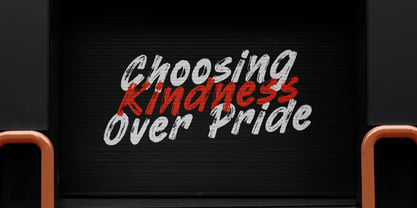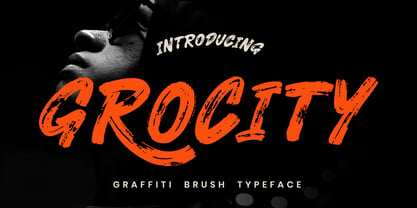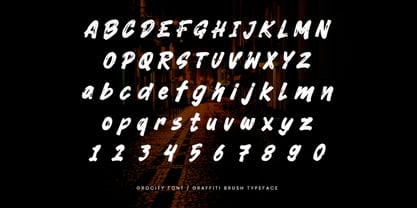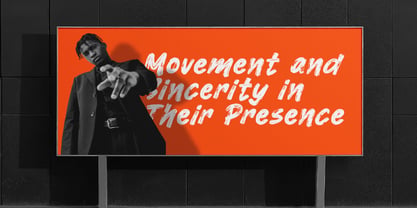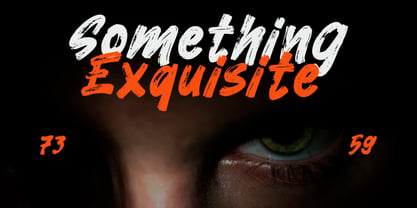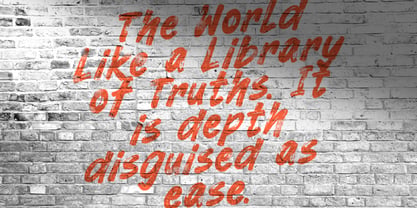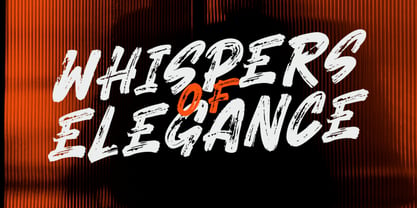
Grocity
by Brandearth
The Grocity Font Family was designed by Moch Rasjid Wiyono and published by Brandearth. Grocity contains 1 styles. More about this family
Grocity is a bold graffiti brush typeface inspired by raw street culture, urban expression, and hand-painted lettering. Designed with energetic brush strokes, textured edges, and dynamic movement, Grocity captures the authentic feel of street tags and wall art. The font includes uppercase, lowercase, numerals, and punctuation. Relevance and Uses Cases Grocity is highly relevant for streetwear brands, music album covers, hip-hop and rap promotions, festival posters, skate brands, gaming graphics, urban YouTube thumbnails, sports campaigns, merchandise design, and bold social media marketing.
Designers: Moch Rasjid Wiyono
Foundry: Brandearth